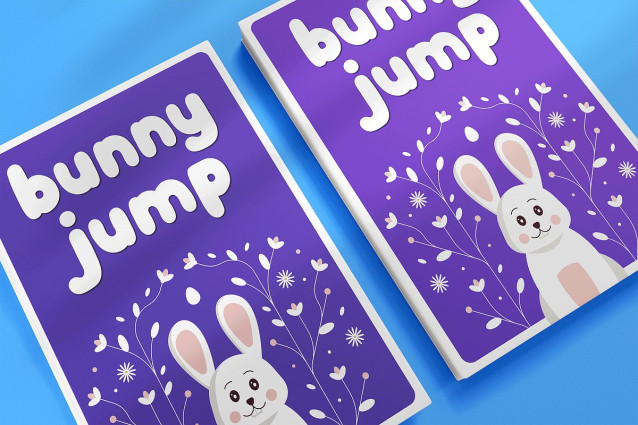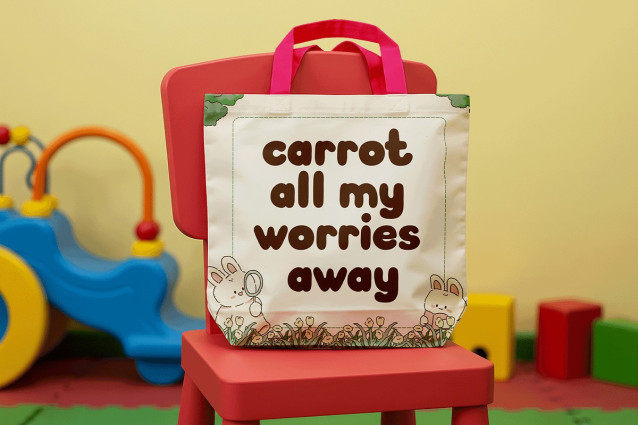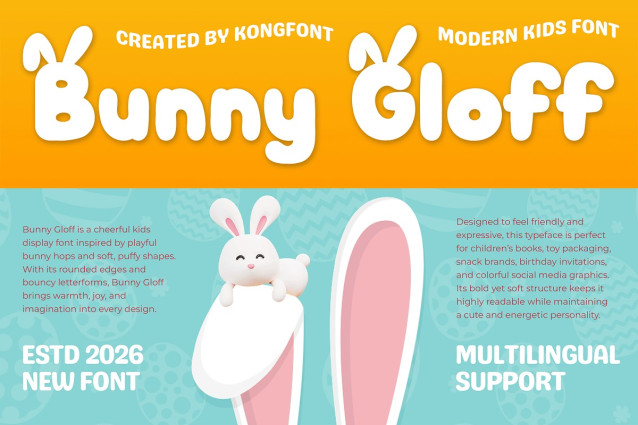
Bunny Gloff Font
Bunny Gloff Font is a modern kids font filled with fun, charm, and cheerful personality. Designed with rounded shapes, soft curves, and lively character forms, this typeface brings warmth and excitement to any children focused design.